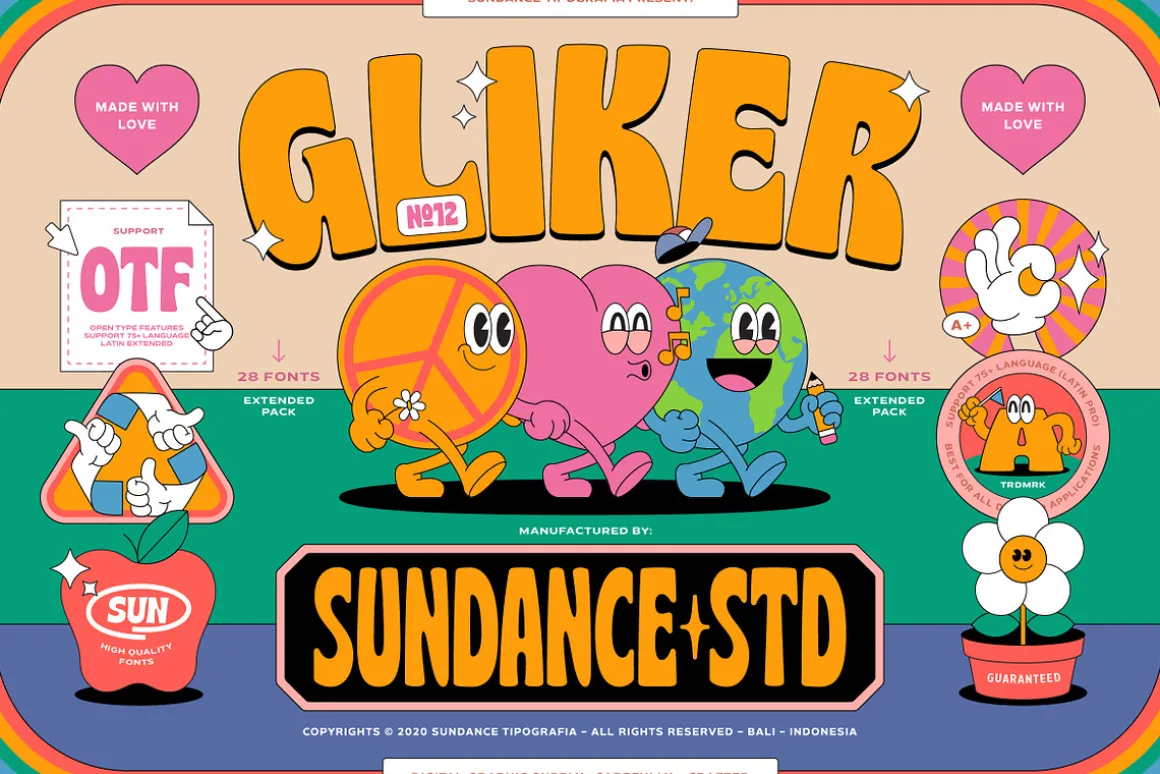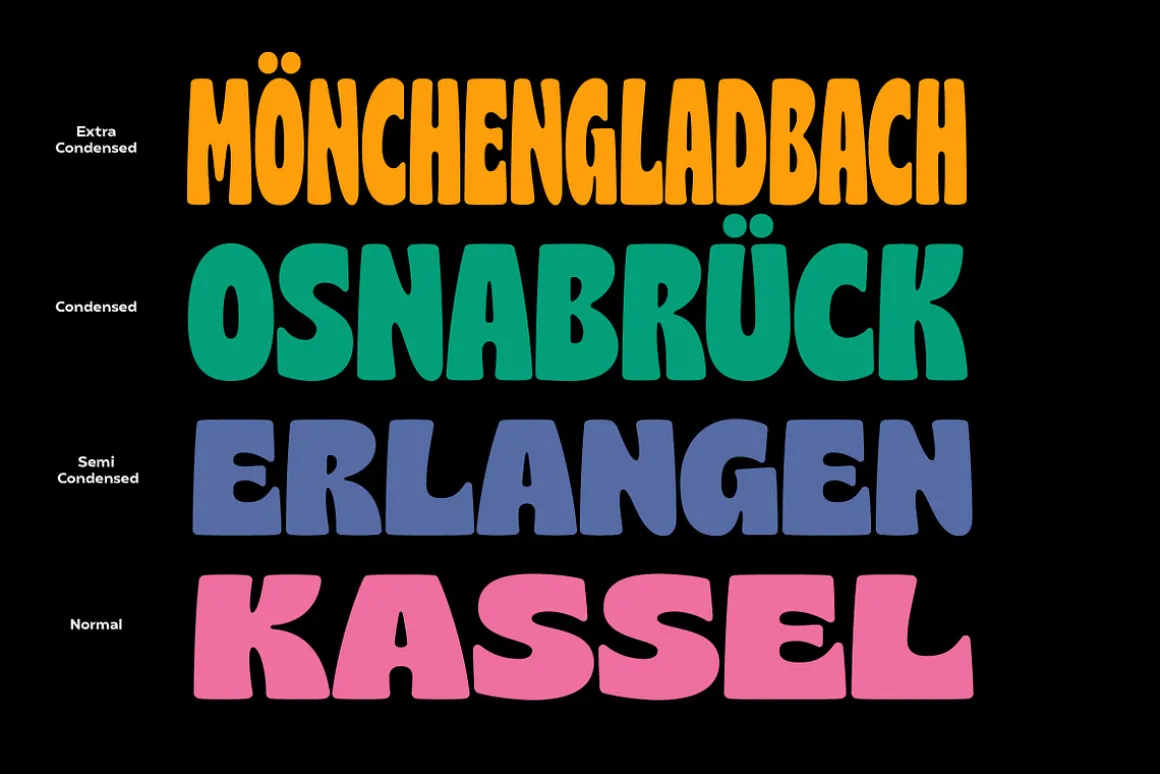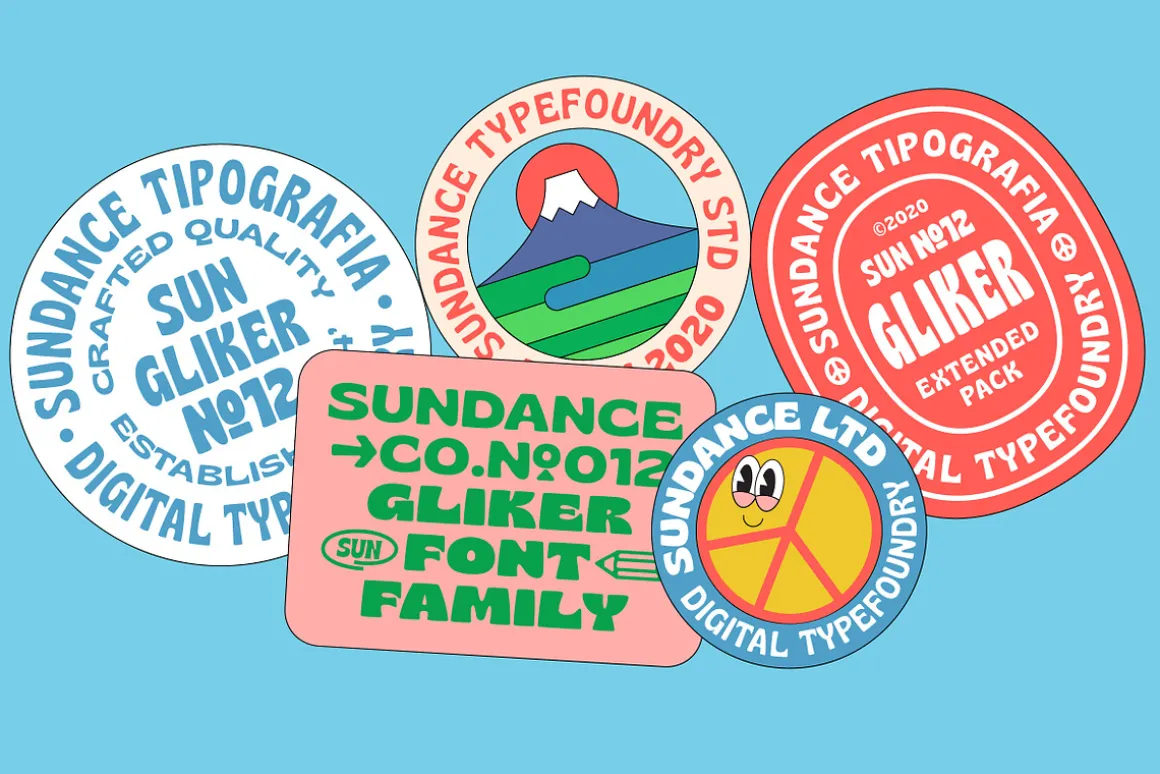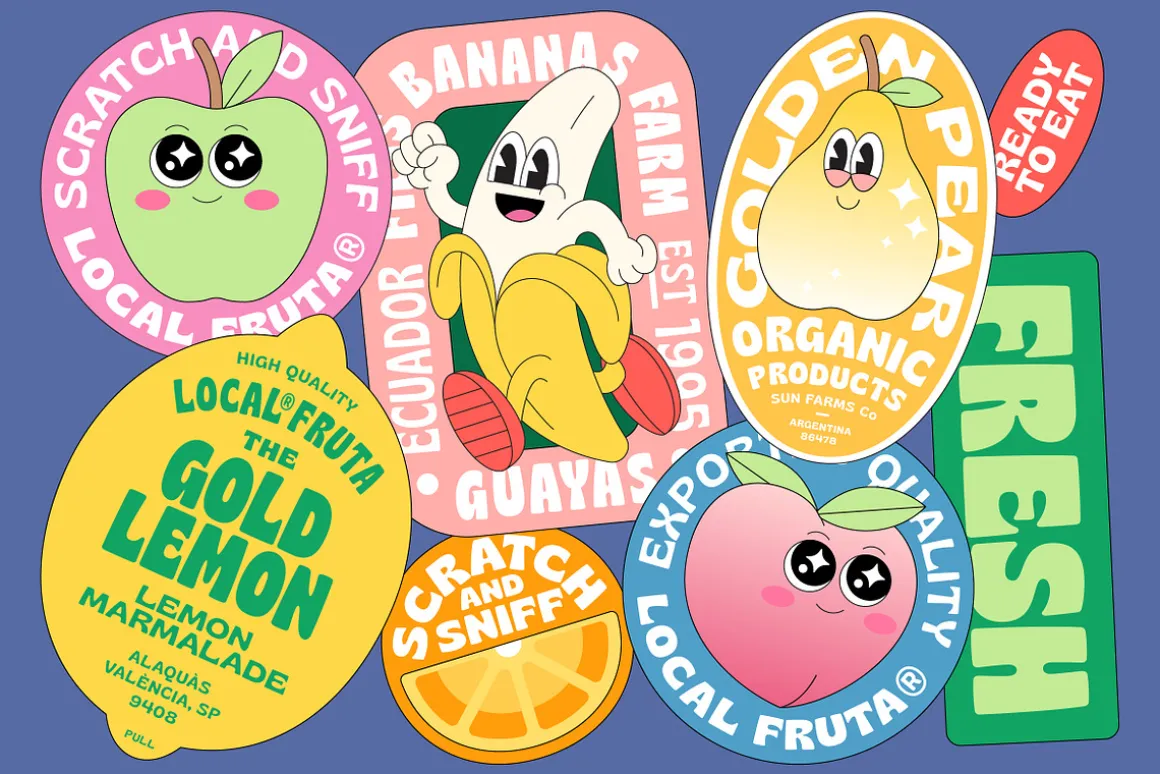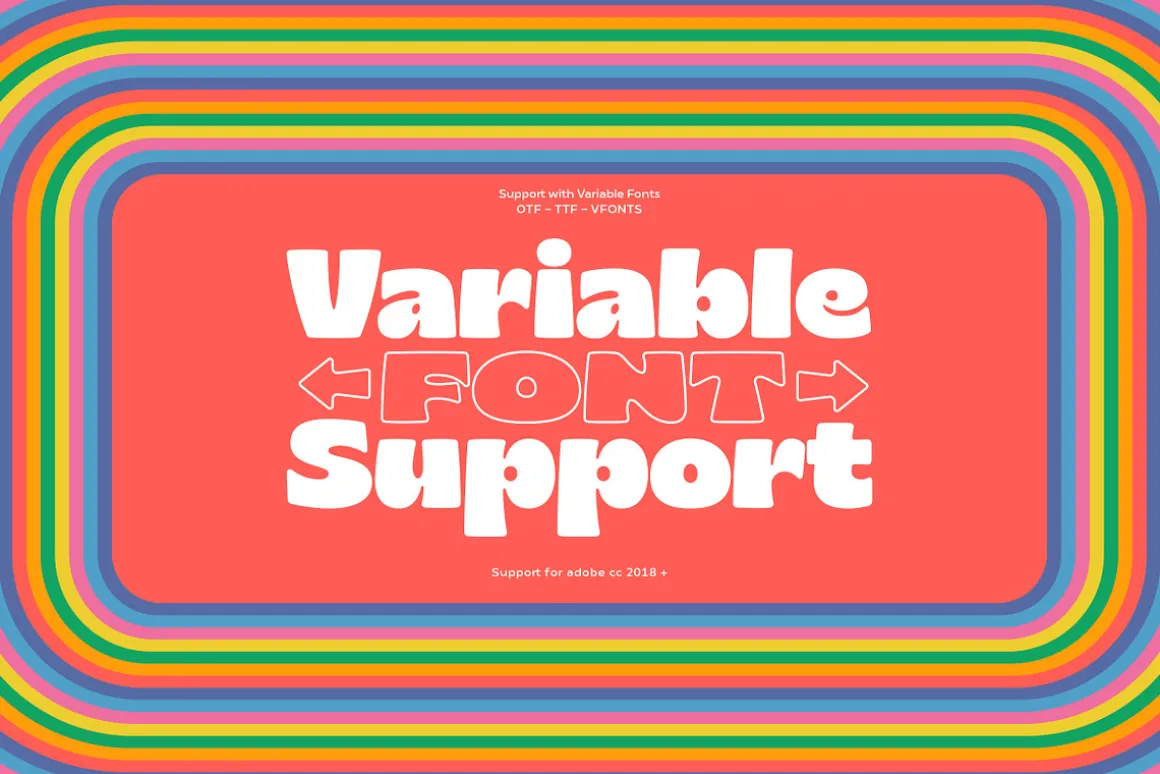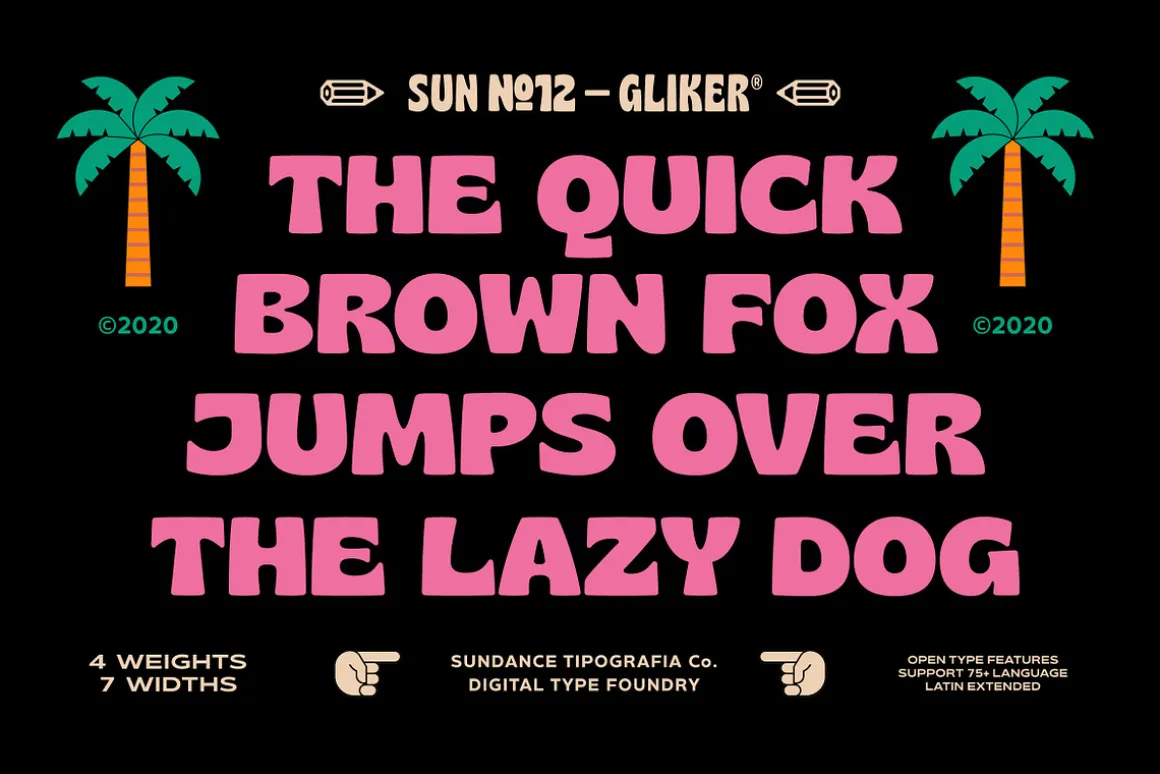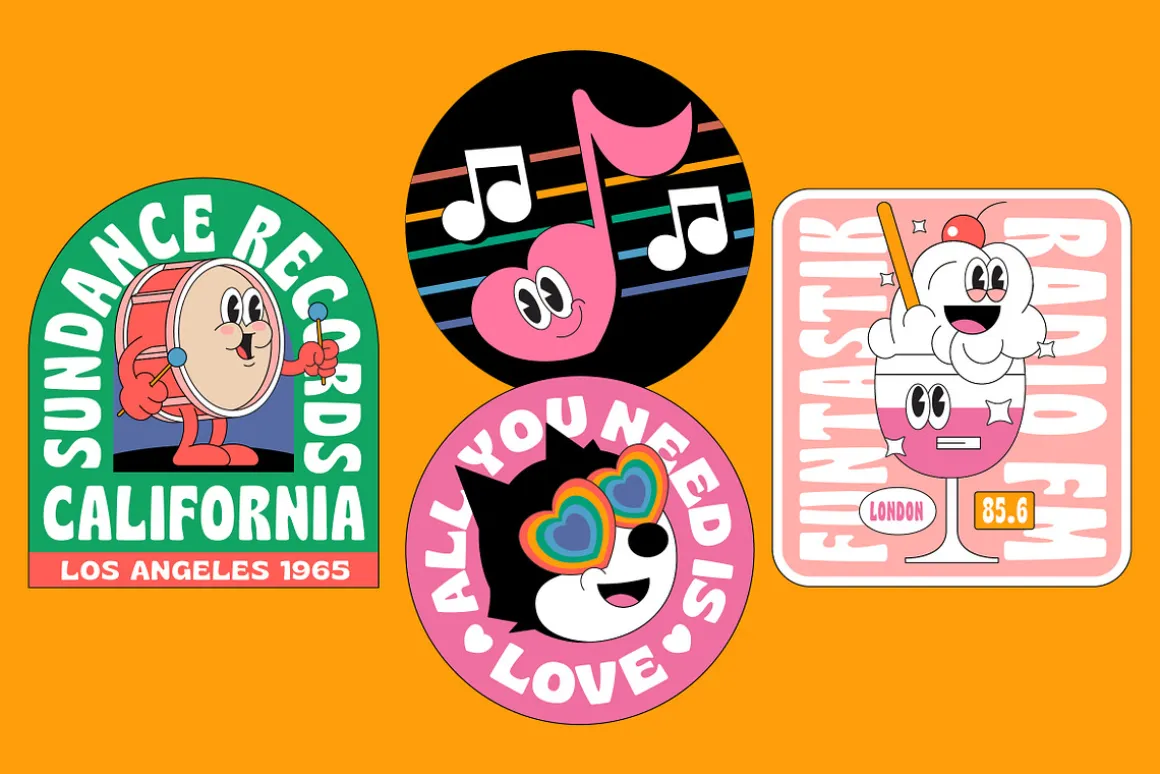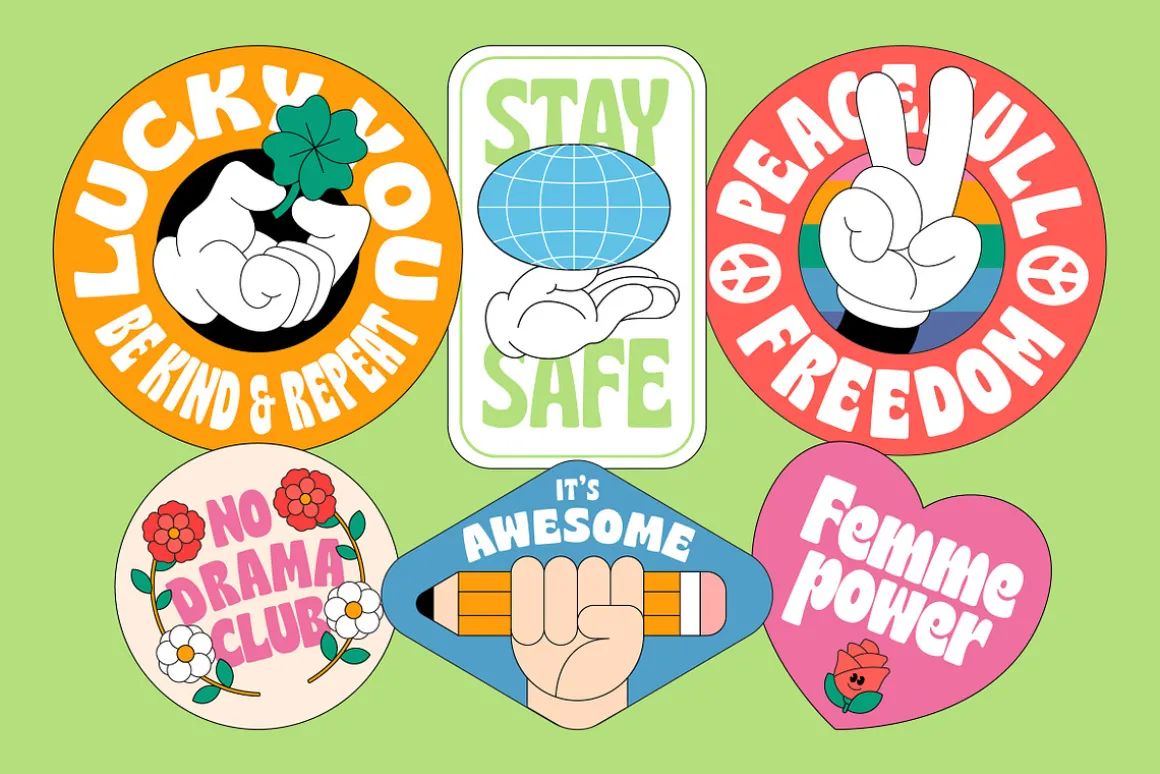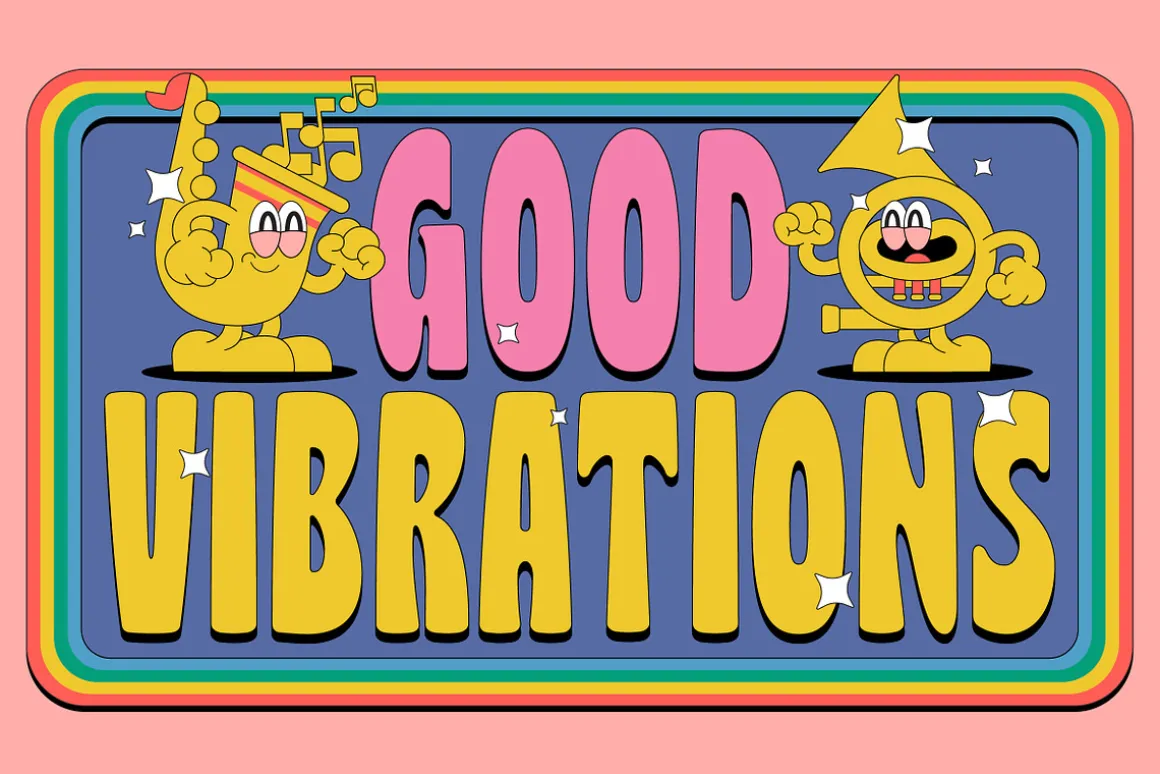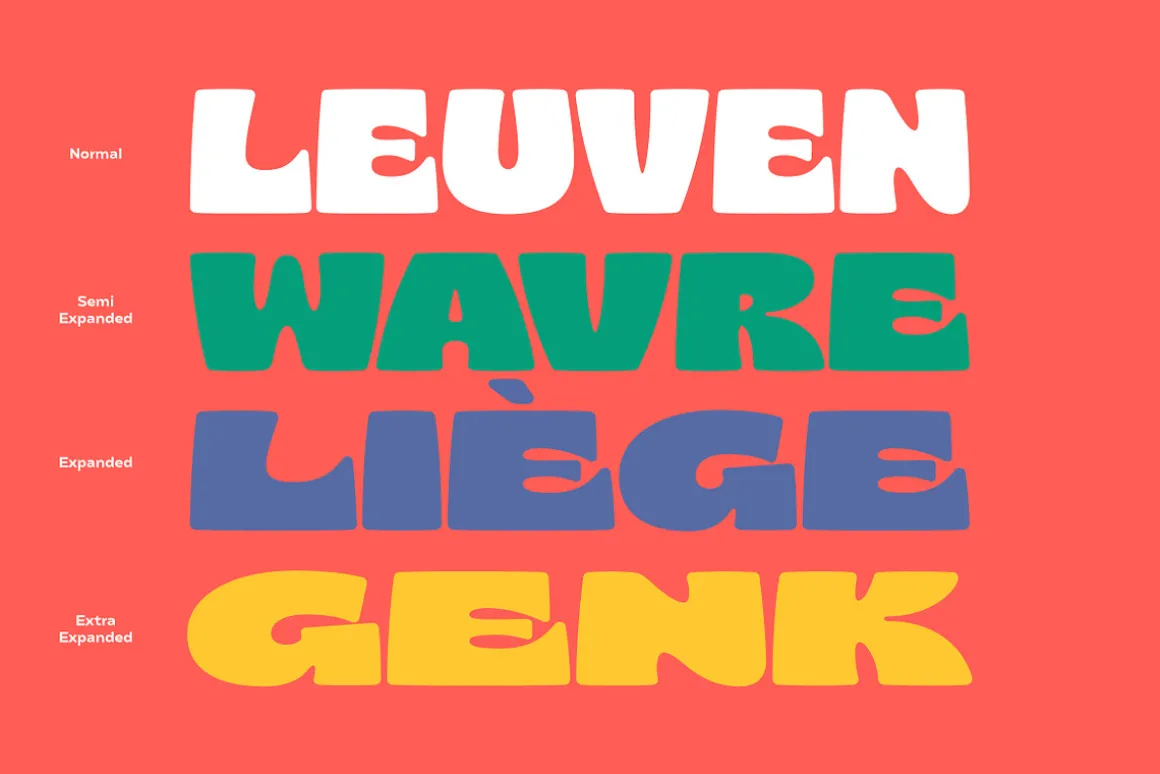
Gliker Font Family was designer in the early 2019. and published on june 2020.The Typeface inspired by the characteristics of Hobo Typefaces. All Corners of this typeface is founded, looks more dynamic and vintage feel.
Gliker available on 4 Weights (Regular, Semi Bold, Bold, Black) and 7 Widths (Extra Condensed, Semi Condensed, Normal, Semi Expanded, Extra Expanded) with total 28 Styles. Also available for 75+ Latin (Extended) Language.